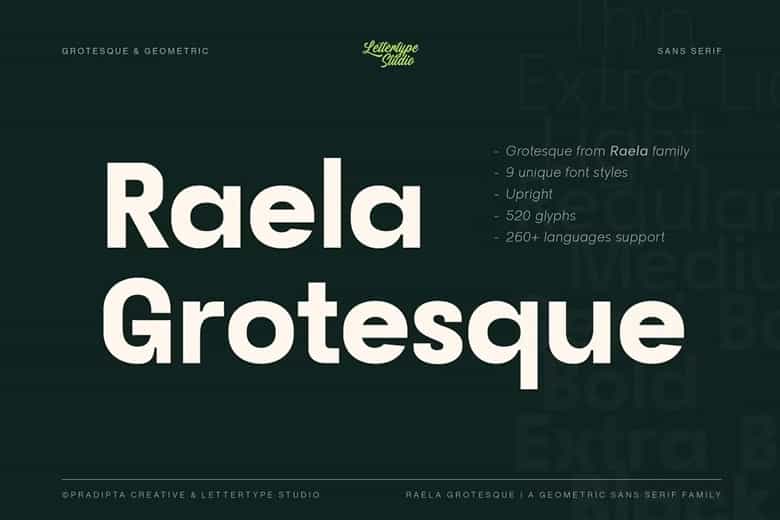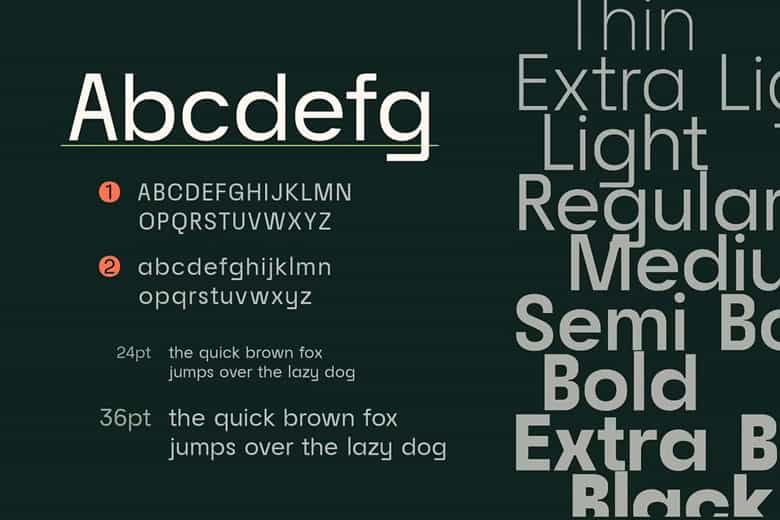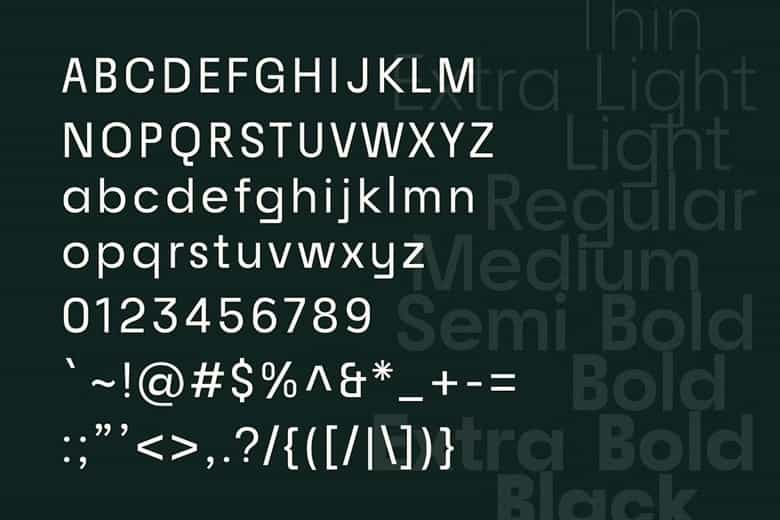
Raela Grotesque Font Family combines clean modern sans serif shapes and geometric purity with the elegant heritage of grotesque principles. Proportional width, flat apex, closed aperture, straight cut stroke ends, designed for readability and versatility in a contemporary sense of being bold and strong. 9 weights, Thin to Black, are included in Raela Grotesk. The features include Stylistic Alternates, figure variations (fractions, tabular lining and old-style, numerator and denominators), and broad Latin language support.